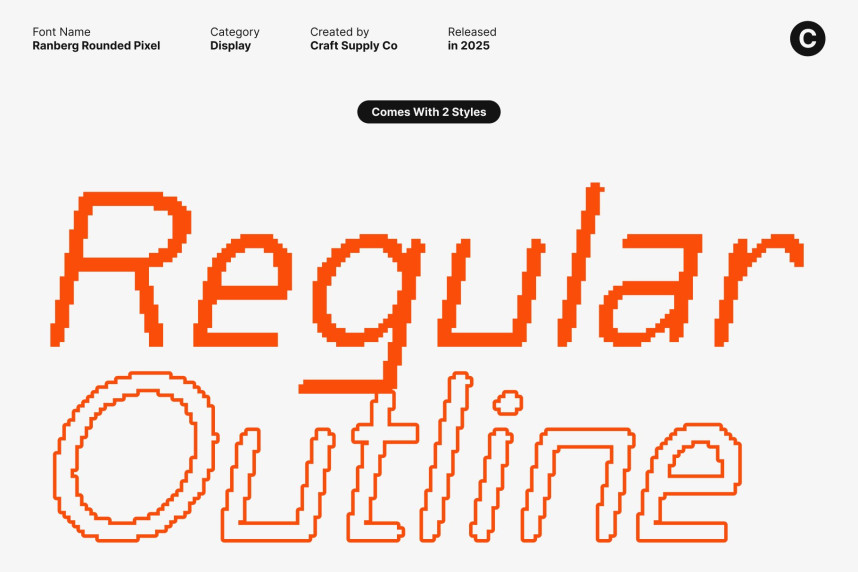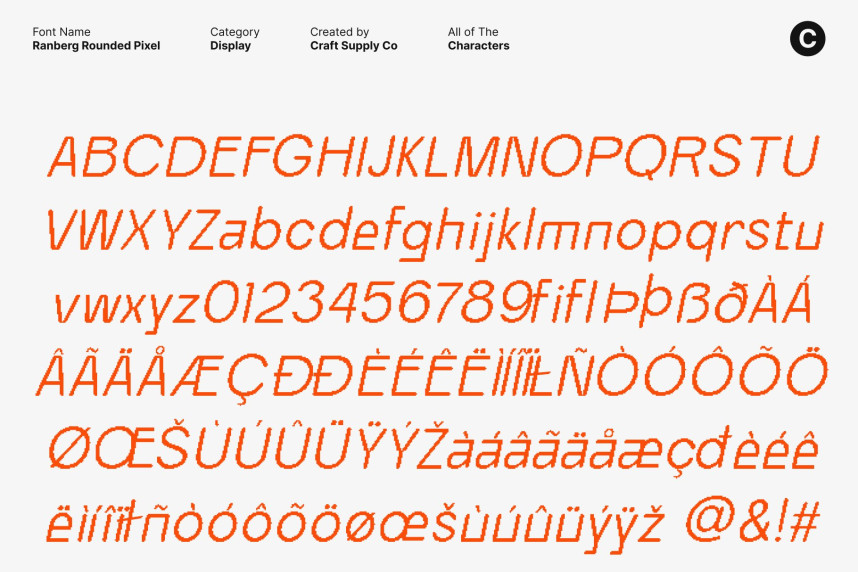
Ranberg Rounded Pixel Font
Ranberg Rounded Pixel Font – Modern Sans Serif with Industrial Pixel Edge Industrial Strength Meets Experimental Design. This is a modern sans serif font that fuses industrial robustness with experimental creativity. Its unconventional geometry and bold forms make it ideal for designers looking to craft layouts with strong visual impact. Perfect for editorial design, posters, and graphic projects, this font conveys confidence, innovation, and modernity in every character.